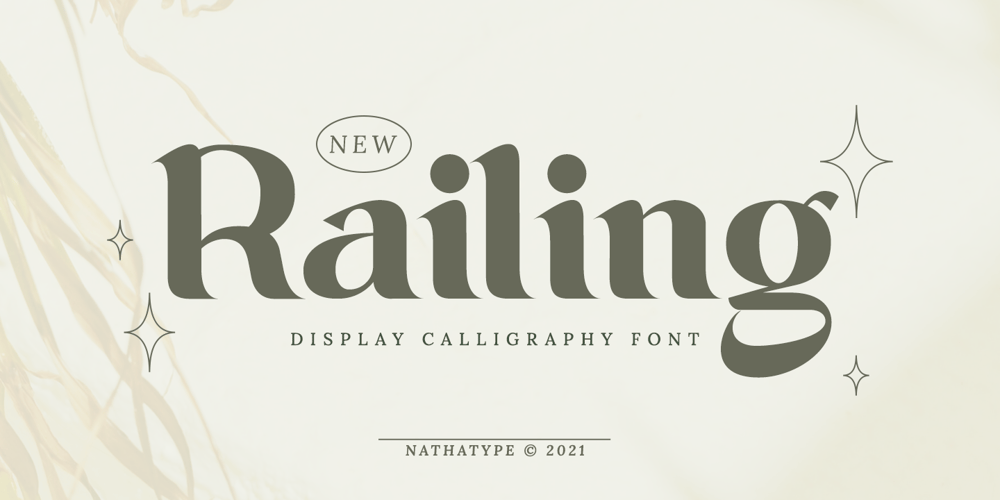
Railing
Railing font
Railing Font Family was designed by Donis Miftahudin and published by Nathatype. Railing contains 1 styles and family package options. Are you looking for a display font? Do you dream of creating headings that stand out and inspire creativity, imagination, and endless fun? Wait no more, we will give you the best choice.Railing-A Display FontRailing is a gorgeous font, designed with a modern vibe. This font is perfect for anything simple and direct. Every stroke and curve was created to entice happiness and elegance. A real head-turner for your presentation, designs, branding, quotes, invitation, website illustrations, and much more.Our font always includes Multilingual Support to make your branding reach a global audience. Inspire your audience, clients, or guests with this beautiful, statement font. Features: Alternates PUA Encoded Numerals and Punctuation Thank you for downloading premium fonts from Natha Studio